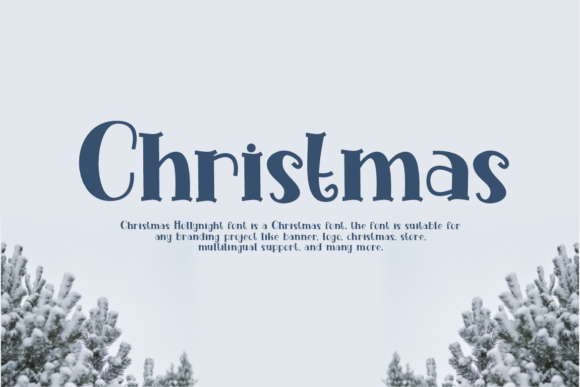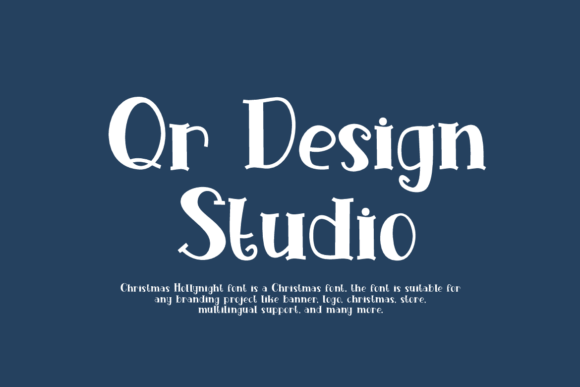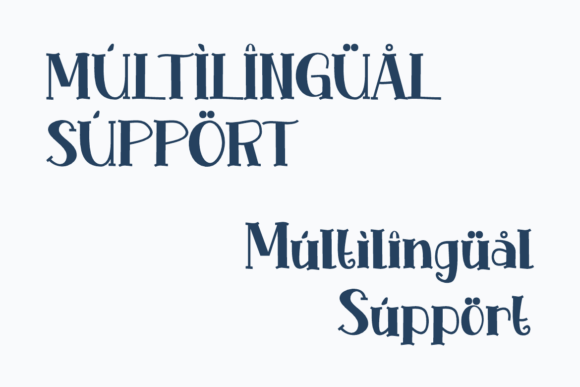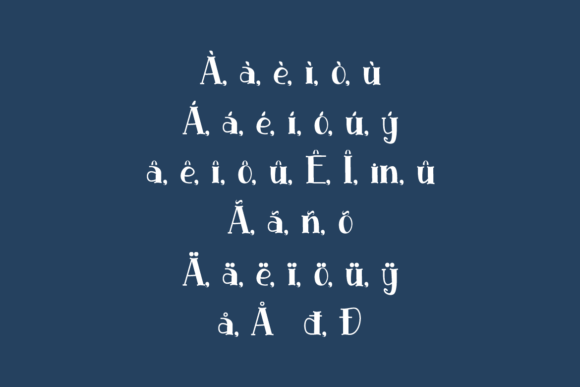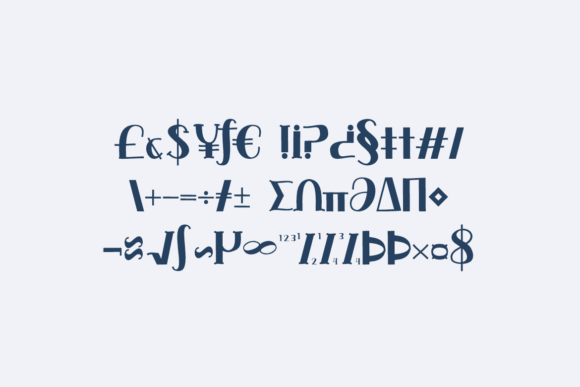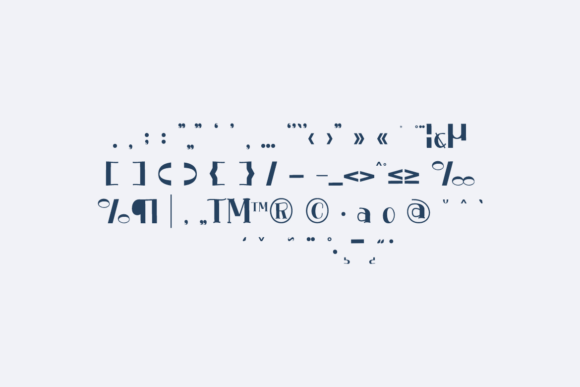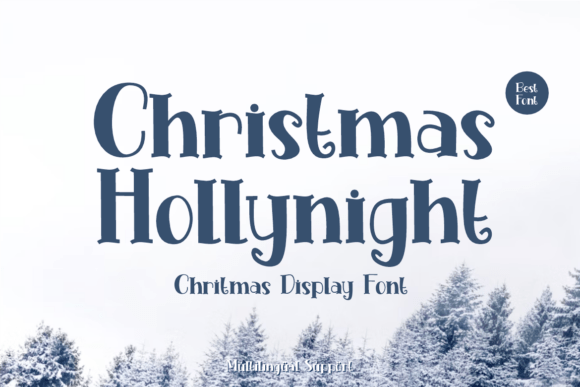
Introducing Christmas HollyNight Font: The Ultimate Holiday Display Font
As the holiday season approaches, designers and crafters are on the lookout for the perfect typography to capture the magic and essence of Christmas. Look no further than Christmas HollyNight, a charming display font that embodies the warmth and festivity of the most wonderful time of the year. In this article, we’ll dive into the features and benefits of this delightful font, and explore how it can elevate your holiday designs.
A Festive and Playful Typeface
Christmas HollyNight is a handcrafted display font that boasts playful curves, whimsical flourishes, and balanced stroke contrasts. Its unique combination of bold yet elegant letterforms makes it perfect for creating eye-catching designs that exude holiday cheer. Whether you’re designing greeting cards, holiday invitations, seasonal packaging, or social media posts, this font is sure to add a touch of timeless holiday spirit to your work.
Expressive and Versatile
One of the standout features of Christmas HollyNight is its expressive, handcrafted feel. The font’s letterforms are carefully crafted to convey a sense of warmth and festivity, making it ideal for a wide range of design applications. The font’s versatility is also noteworthy, allowing designers to create both modern and vintage-inspired designs with ease. Whether you’re looking to create a bold and playful design or a more elegant and sophisticated one, Christmas HollyNight has got you covered.
Multilingual Support and PUA Encoding
Christmas HollyNight is designed to be accessible and easy to use. The font is PUA-encoded, which means that all glyphs, swashes, and alternate characters are effortless to access. This feature makes it simple for designers to get creative with the font, without having to worry about complicated encoding issues. Additionally, the font offers multilingual support, making it a great choice for designers working on international projects or with clients who speak multiple languages.
Christmas HollyNight is a font that’s been designed with designers and crafters in mind. Its unique combination of playfulness and elegance makes it perfect for a wide range of design applications, from digital projects to print materials. Whether you’re a professional designer or a crafter looking to add a personal touch to your holiday projects, this font is sure to inspire your creativity.
Ideas for Using Christmas HollyNight
So, how can you use Christmas HollyNight to elevate your holiday designs? Here are a few ideas to get you started:
- Design a festive holiday greeting card with a playful Christmas HollyNight headline and a heartfelt message inside.
- Create a set of holiday invitations that showcase the font’s elegant and sophisticated side.
- Use Christmas HollyNight to add a touch of holiday cheer to your seasonal packaging designs.
- Design a set of social media graphics that showcase the font’s playful and whimsical side.
Christmas HollyNight is a charming display font that’s perfect for designers and crafters looking to capture the magic of the holiday season. With its playful curves, whimsical flourishes, and balanced stroke contrasts, this font radiates warmth and festivity in every letter. Its expressive, handcrafted feel and versatility make it ideal for a wide range of design applications, from greeting cards to social media posts. Complete with multilingual support and PUA encoding, Christmas HollyNight is the perfect companion for any creative looking to bring a touch of timeless holiday spirit to their work.
Get Creative with Christmas HollyNight